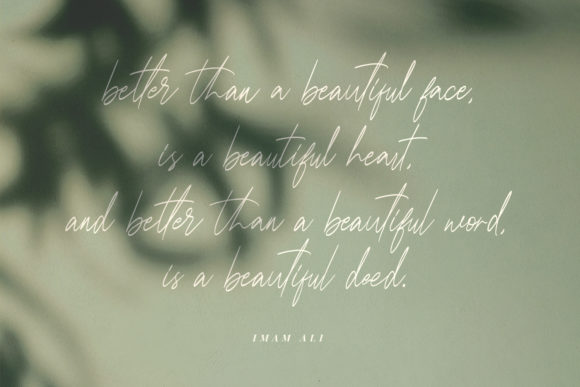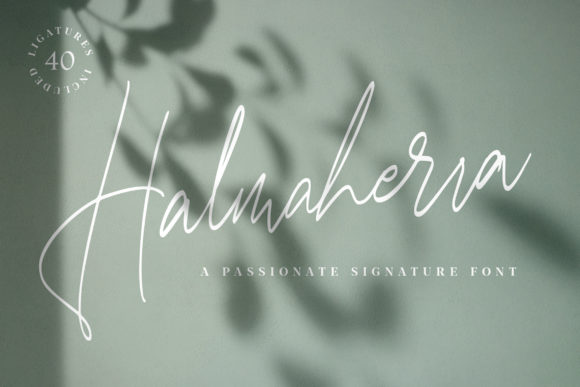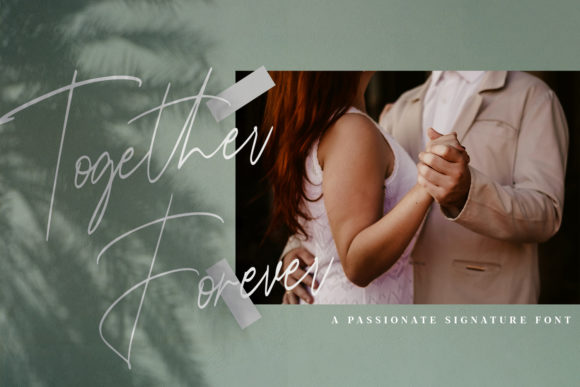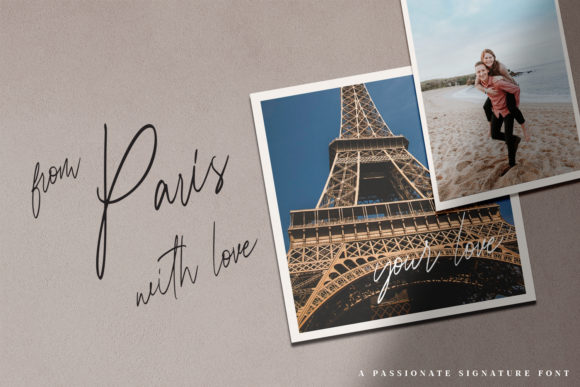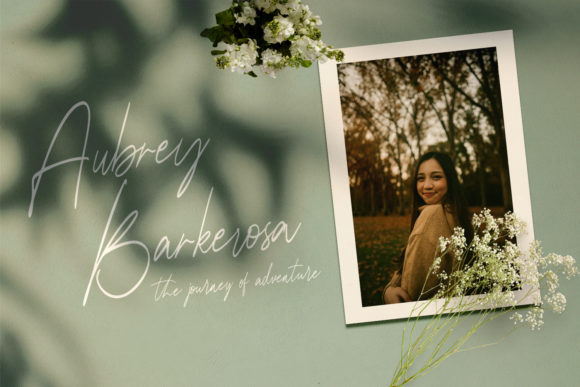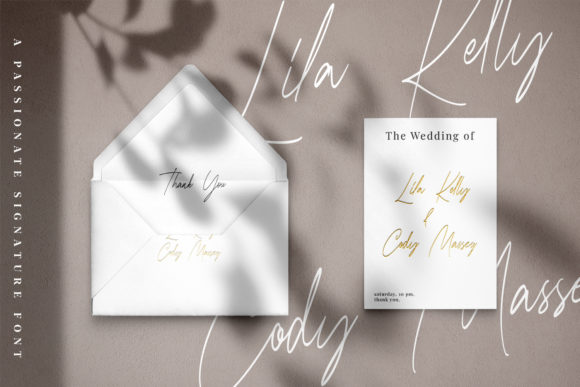
Halmaherra Font: Elevate Your Designs with a Touch of Sophistication
In the world of typography, a well-crafted font can make all the difference in bringing a design to life. For designers and crafters seeking to add a dash of elegance and personality to their projects, Halmaherra Font is an exceptional choice. This charming handwritten font boasts an authentic feel that is sure to captivate audiences and elevate your designs to new heights.
The Essence of Halmaherra Font
Halmaherra is a passionate and charming handwritten font, meticulously designed to infuse your projects with a sophisticated touch. Its unique, flowing script exudes warmth and character, making it perfect for a wide range of design applications. Whether you’re working on a branding project, crafting a heartfelt invitation, or creating engaging content, Halmaherra Font is the ideal companion to help you convey your message with style and panache.
What Sets Halmaherra Apart
So, what makes Halmaherra Font stand out from the crowd? Here are a few key features that set it apart:
- Authentic feel: Halmaherra’s handwritten design gives it a genuine, organic feel that resonates with audiences.
- Passionate and charming: The font’s unique character shines through in its elegant, flowing script.
- Sophisticated touch: Add a dash of refinement to your designs with Halmaherra’s sophisticated, high-end feel.
- Versatile: Suitable for a wide range of design projects, from branding and advertising to crafting and personal projects.
Halmaherra Font is a dream come true for designers and crafters seeking to add a personal touch to their work. Whether you’re a seasoned professional or just starting out, this font is easy to use and adaptable to your design style. With Halmaherra, you can:
- Create stunning branding materials: Logos, business cards, and letterheads will take on a new level of sophistication with Halmaherra.
- Craft beautiful invitations and stationery: Add a touch of elegance to your wedding invitations, party cards, and other paper crafts.
- Elevate your digital content: Use Halmaherra to create engaging social media graphics, blog posts, and website content that stands out.
Tips for Using Halmaherra Font
To get the most out of Halmaherra Font, here are a few expert tips:
- Pair with contrasting fonts: Combine Halmaherra with bold, modern fonts to create visual interest and hierarchy.
- Experiment with colors: Try pairing Halmaherra with rich, muted colors to add depth and character to your designs.
- Pay attention to spacing: Adjust the letter spacing to create a natural, flowing look that showcases Halmaherra’s unique character.
In conclusion, Halmaherra Font is a game-changer for designers and crafters seeking to add a touch of sophistication and personality to their projects. With its authentic feel, passionate character, and versatile design, Halmaherra is the perfect choice for a wide range of applications. So why wait? Discover the magic of Halmaherra Font and elevate your designs to new heights!